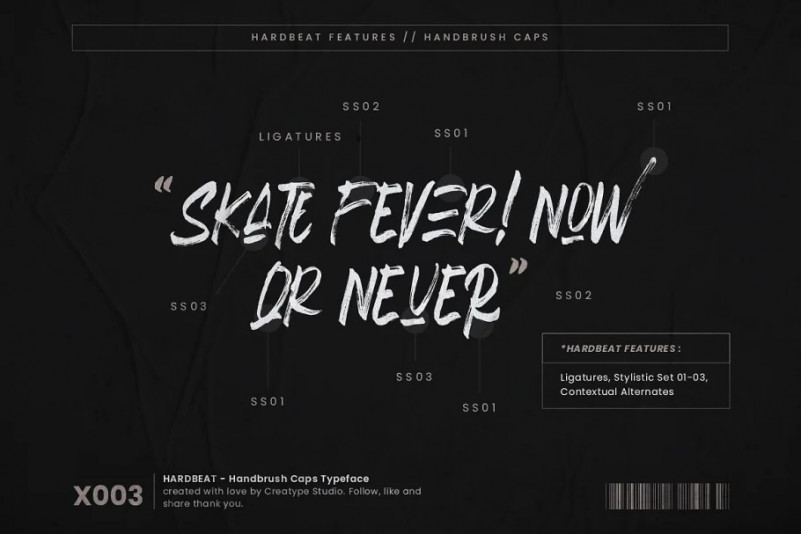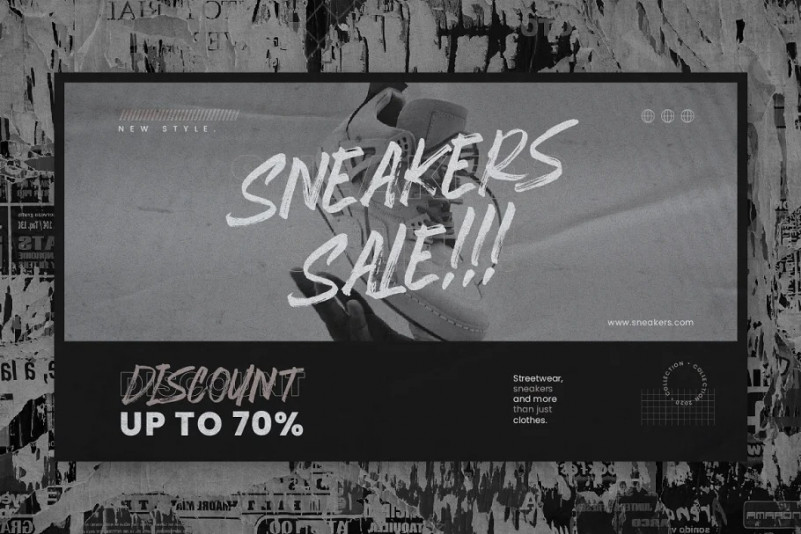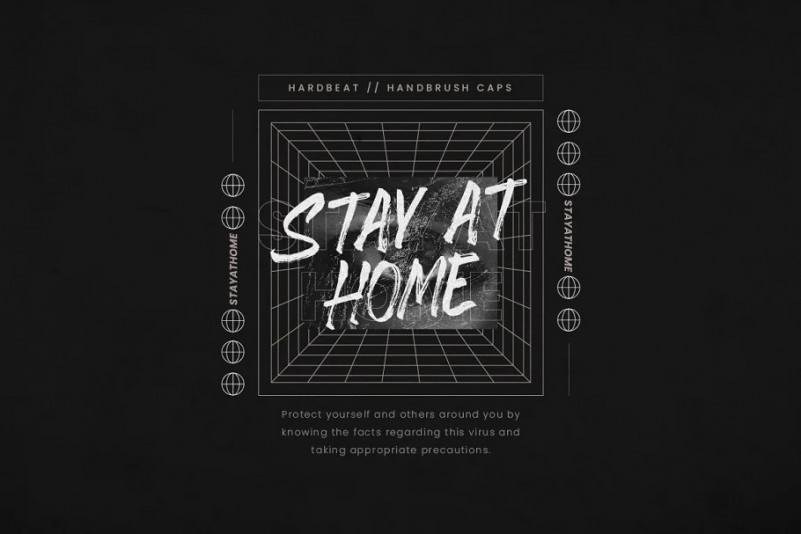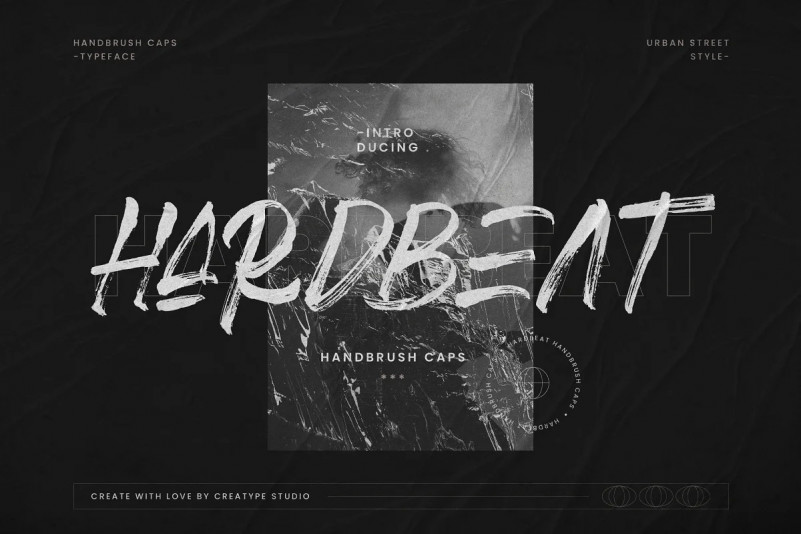
Hardbeat Brush Font
This font is a rapid script, hand-painted with a brush to give a great contrast between thick and thin curves. This typeface is perfect for branding projects, logo, wedding designs, social media posts, advertisements, product packaging, product designs, label, photography, watermark, invitation, stationery and any projects that need handwriting taste.